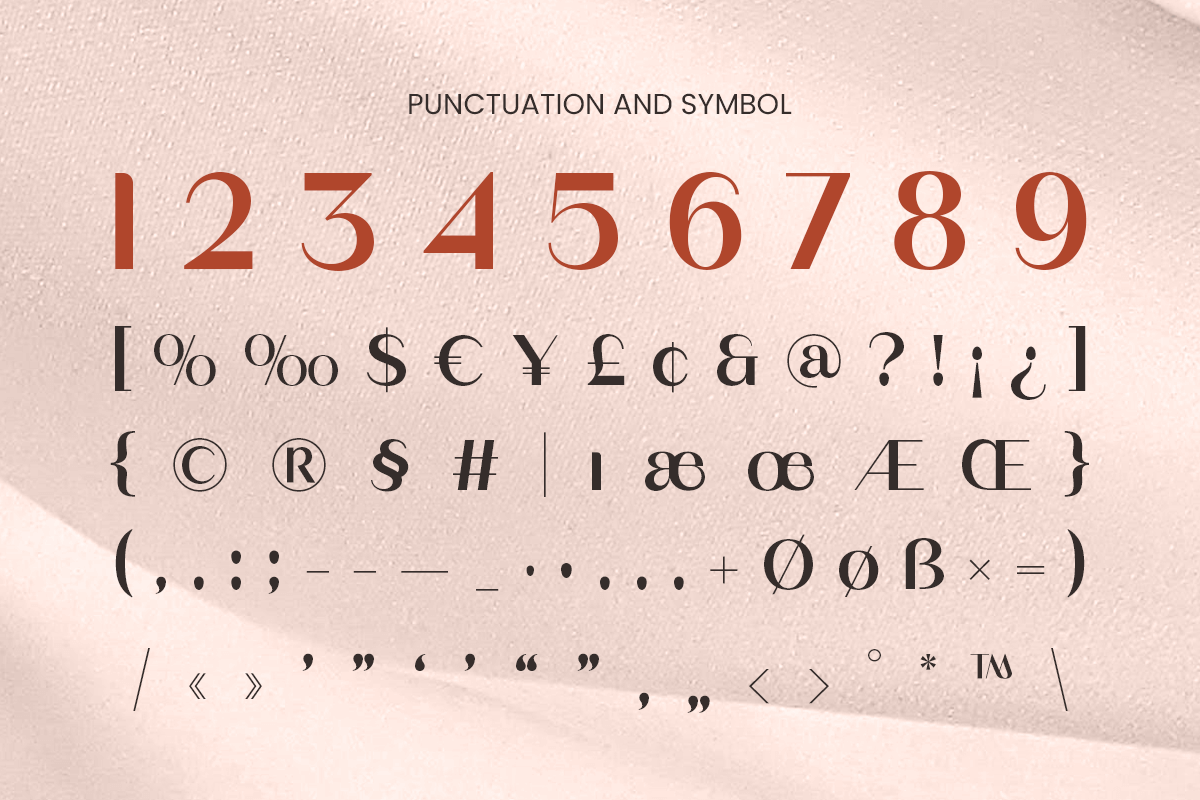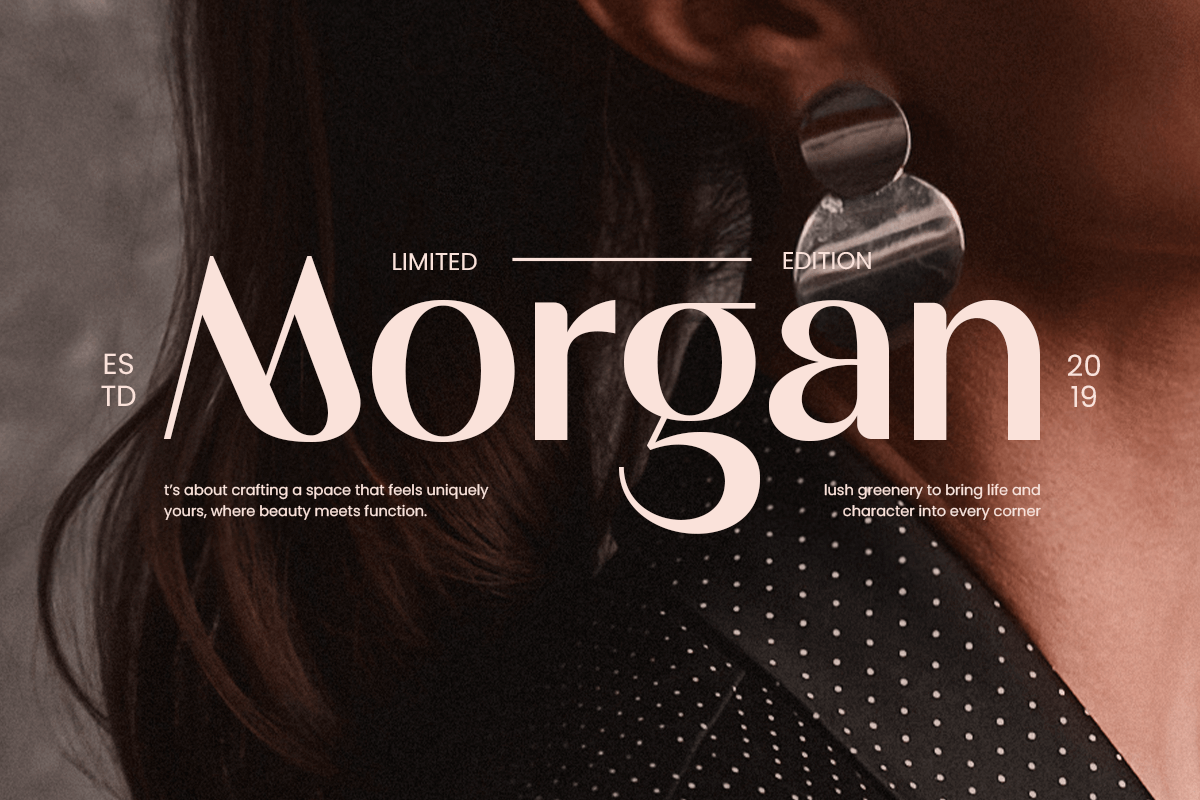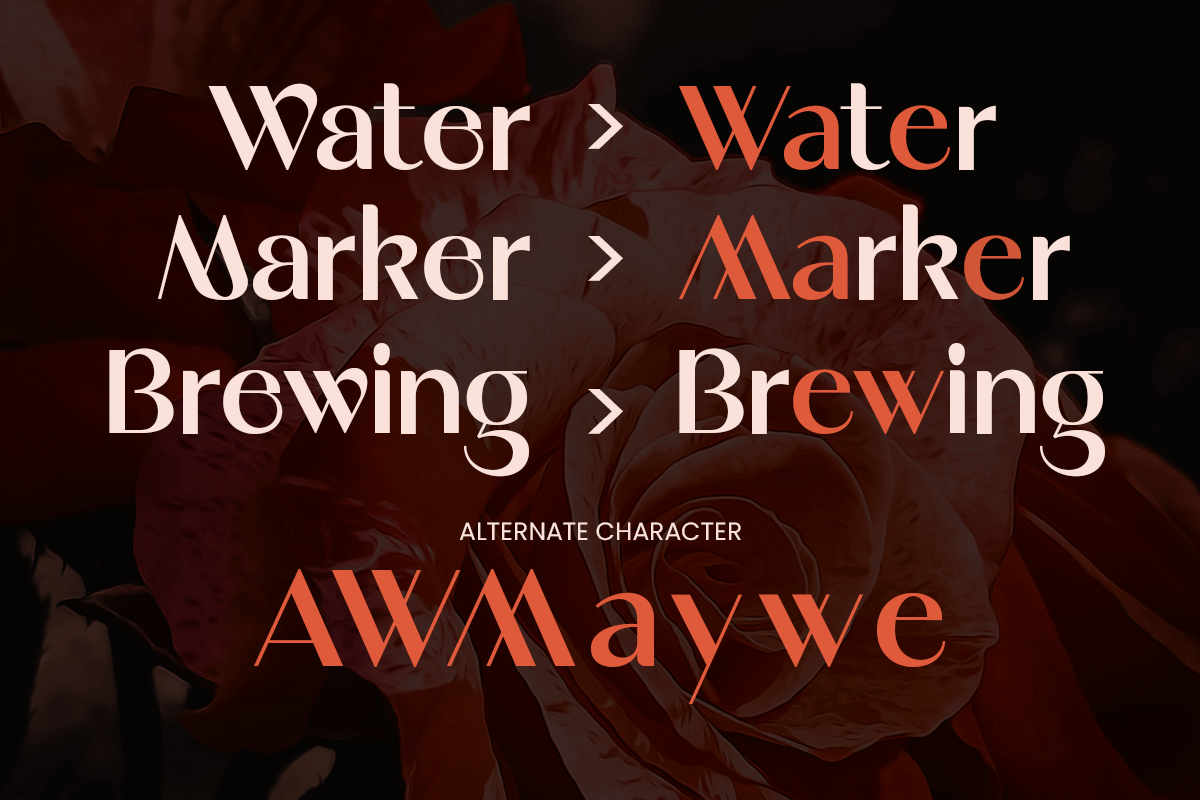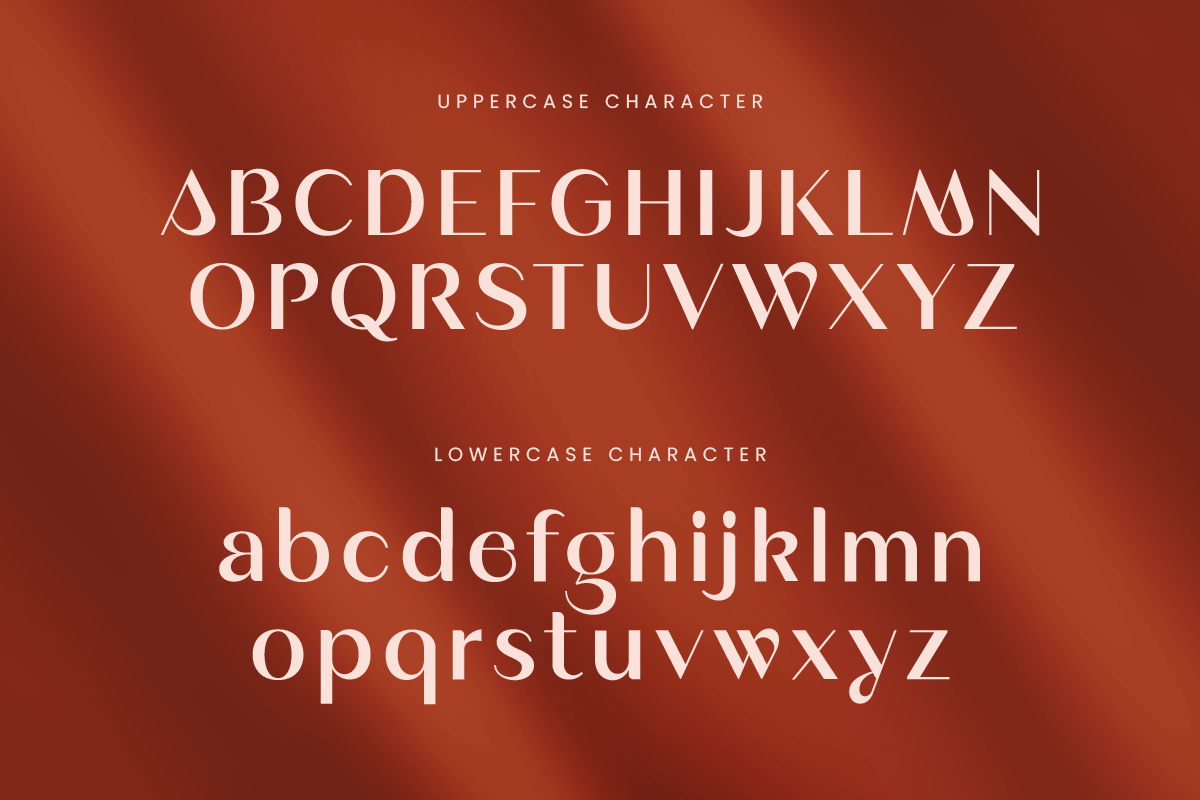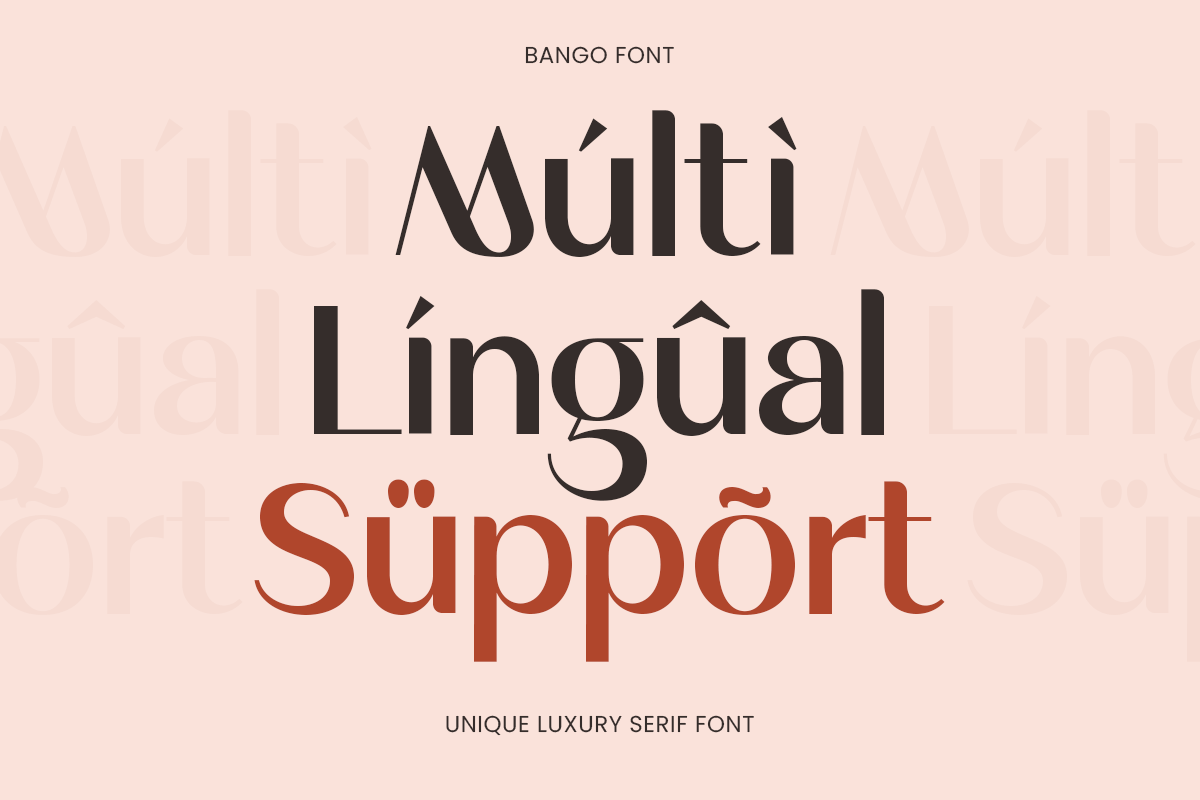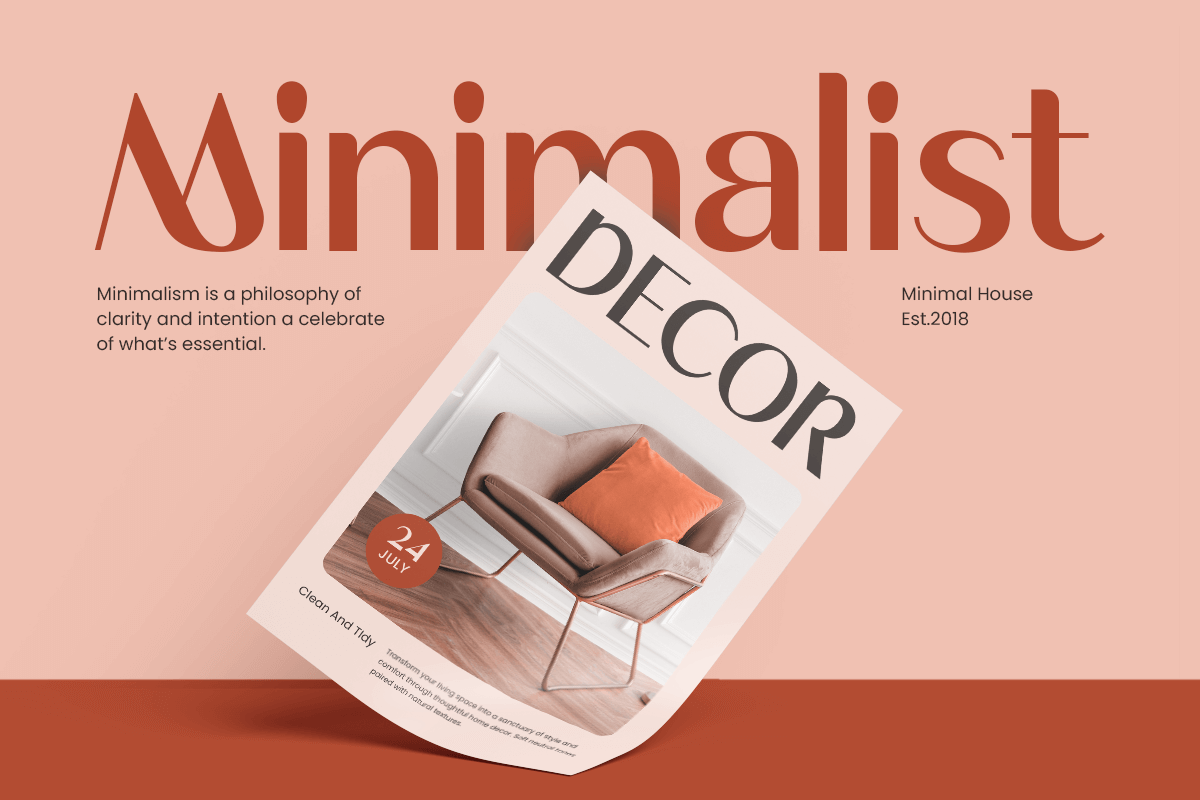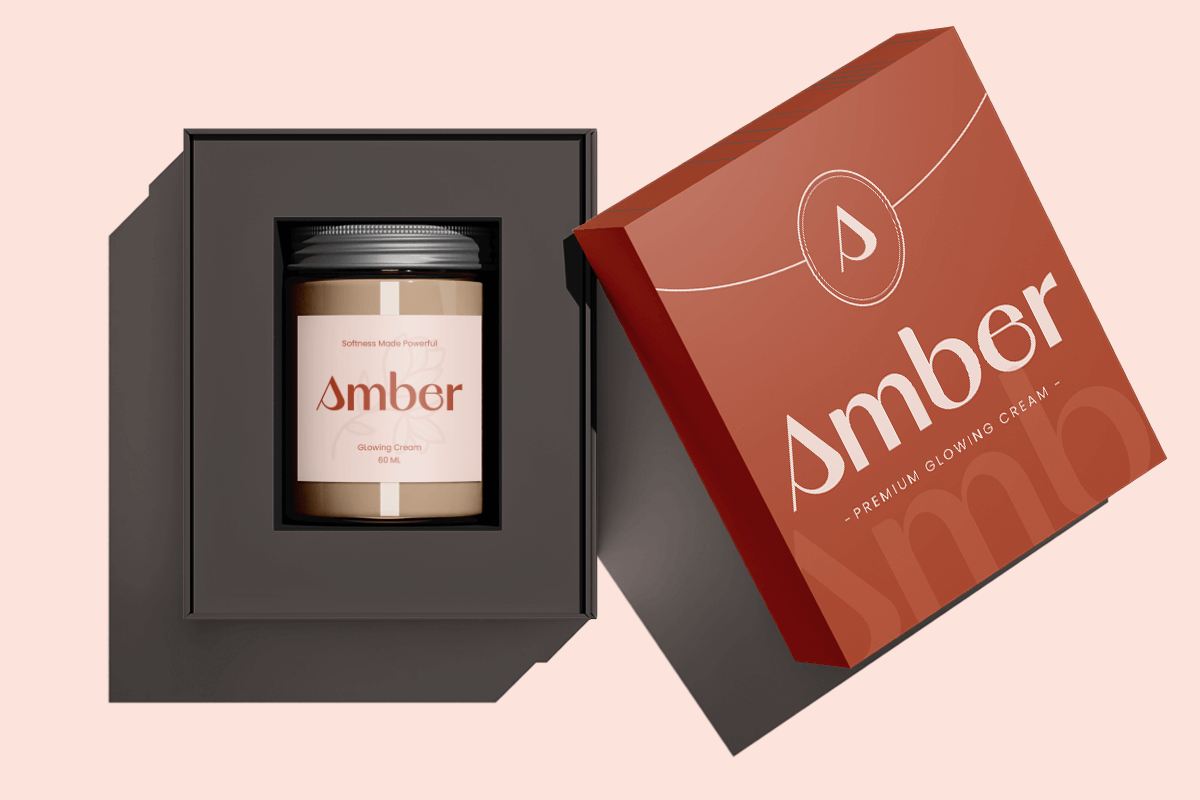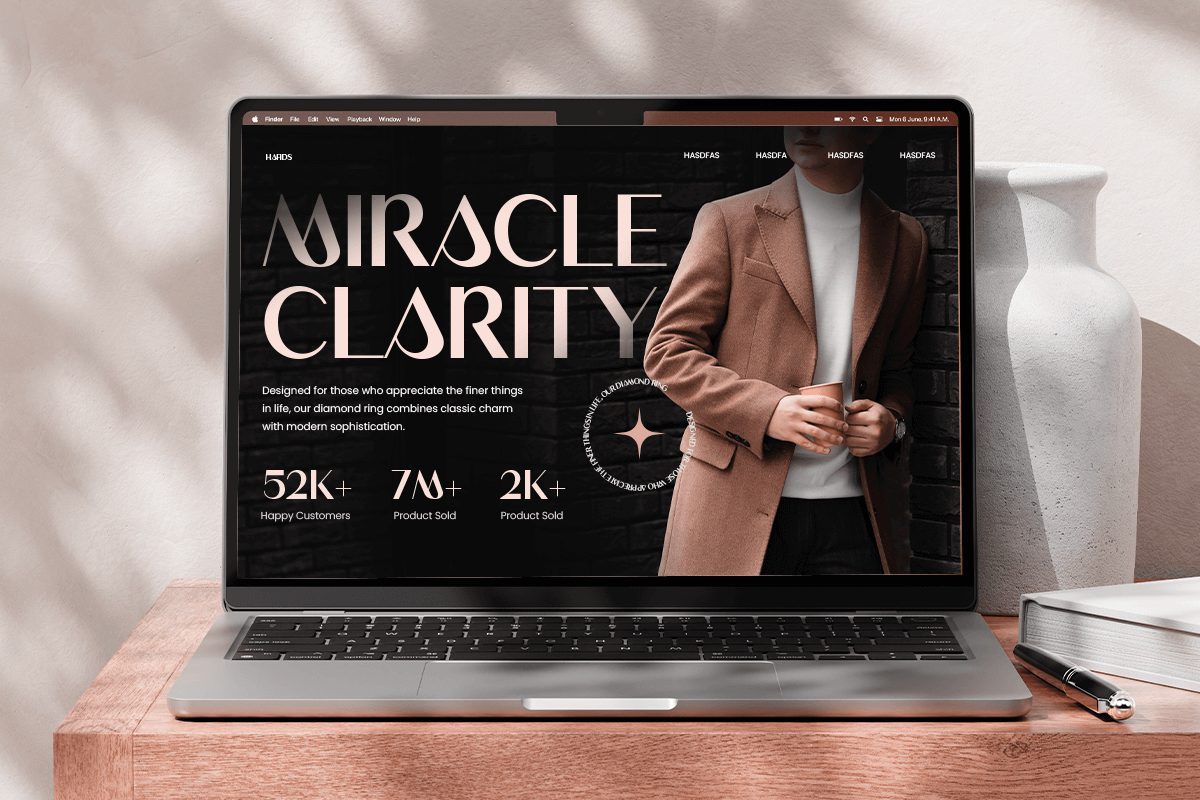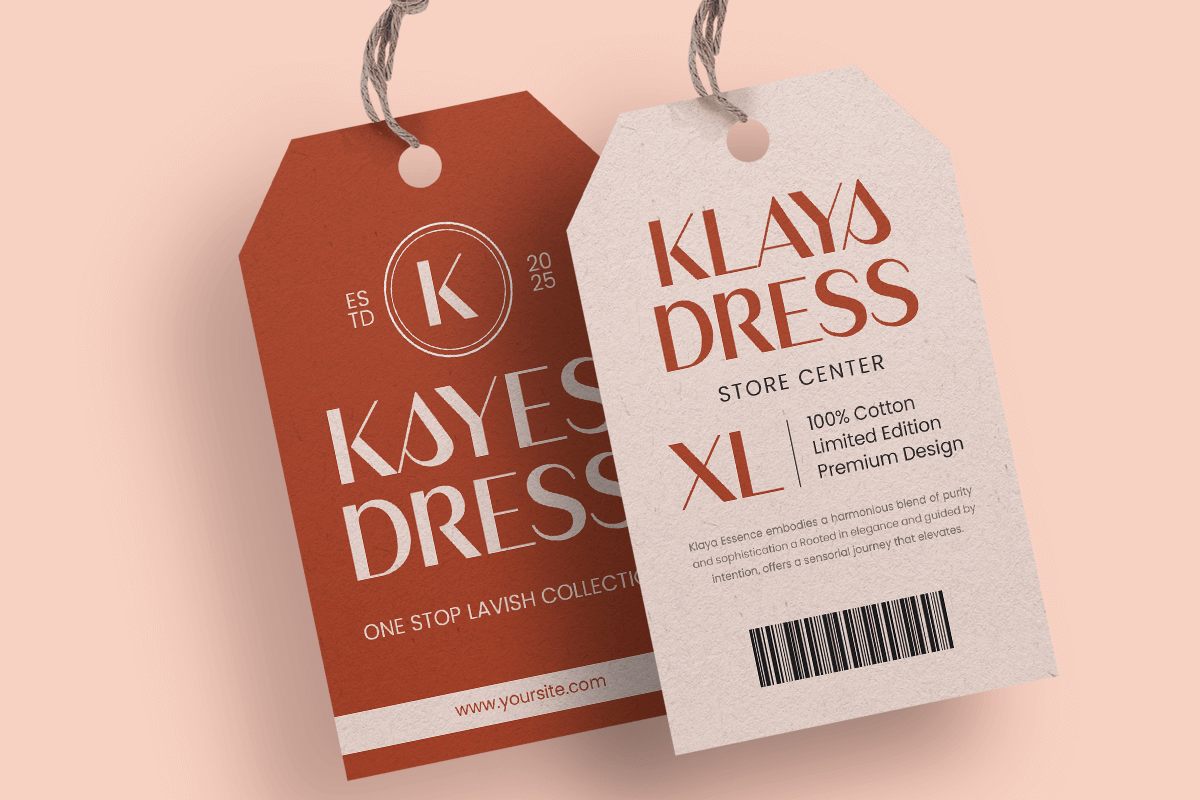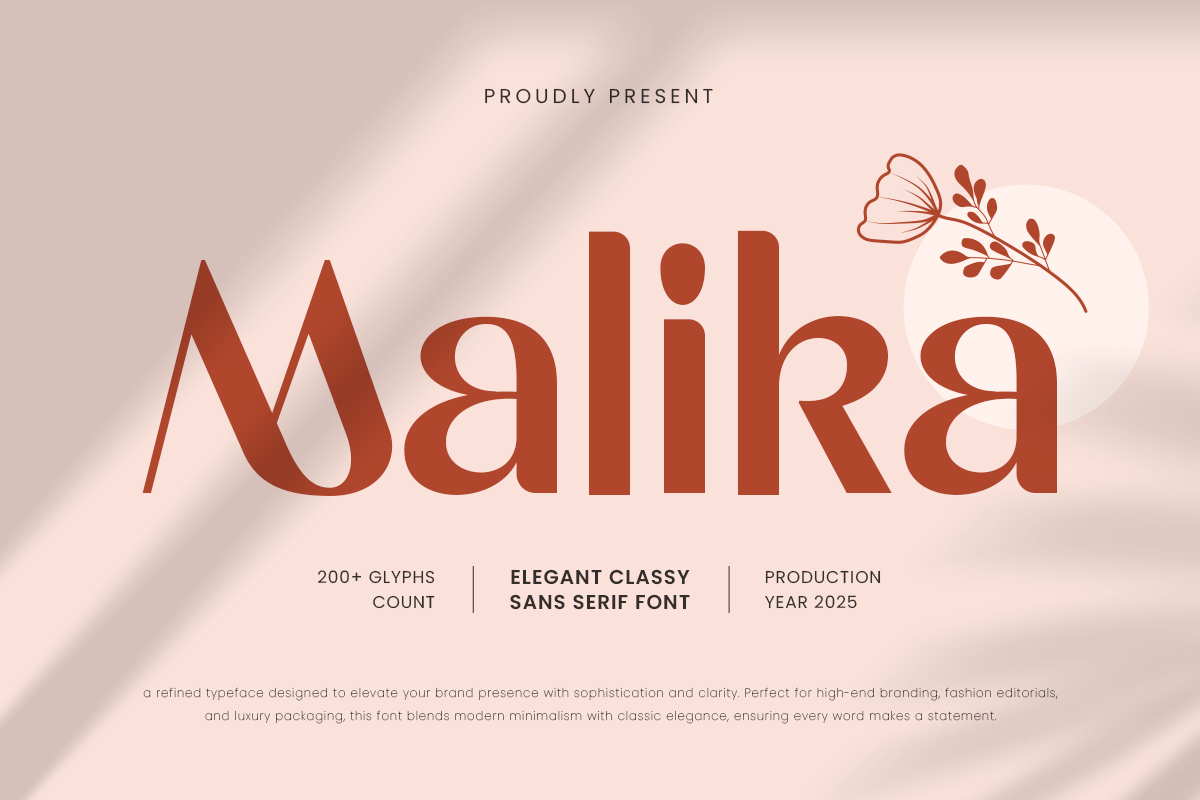
Malika - Elegant Minimalist Font
Malika is an elegant minimalist luxury font designed to bring sophistication and refinement to your creative projects. Ideal for high-end branding, logos, editorial designs, packaging, and fashion-related projects, it combines sleek minimalism with a luxurious touch.
With clean, well-proportioned letterforms, Malika ensures readability while delivering a polished, professional, and modern aesthetic across both digital and print media.
Malika – Elegant Minimalist Luxury Font Features
Elegant and minimalist character set
Perfect for luxury branding, logos, and high-end designs
Uppercase, lowercase, numerals, and punctuation included
OpenType features for extra versatility
Multilingual support for Afrikaans, Albanian, Asu, Basque, Bemba, Bena, Breton, Chiga, Cornish, Dutch, English, Estonian, Filipino, Finnish, Friulian, Galician, German, Gusii, Indonesian, Irish, Italian, Kabuverdianu, Kalenjin, Kinyarwanda, Luo, Luxembourgish, Luyia, Machame, Makhuwa-Meetto, Makonde, Malagasy, Manx, Morisyen, North Ndebele, Nyankole, Oromo, Portuguese, Quechua, Romansh, Rombo, Rundi, Rwa, Samburu, Sango, Sangu, Scottish Gaelic, Sena, Shambala, Shona, Soga, Somali, Spanish, Swahili, Swedish, Swiss, and more.